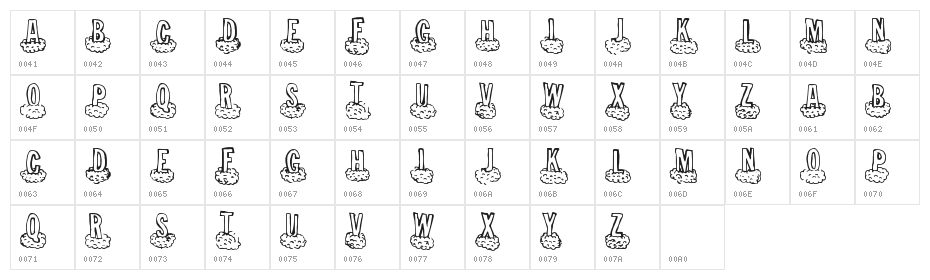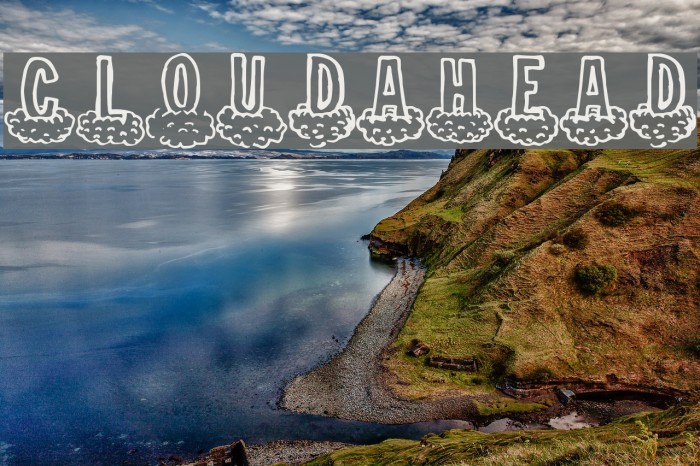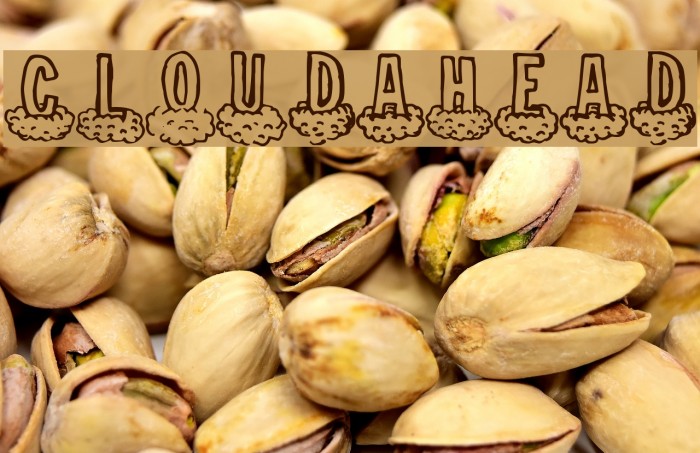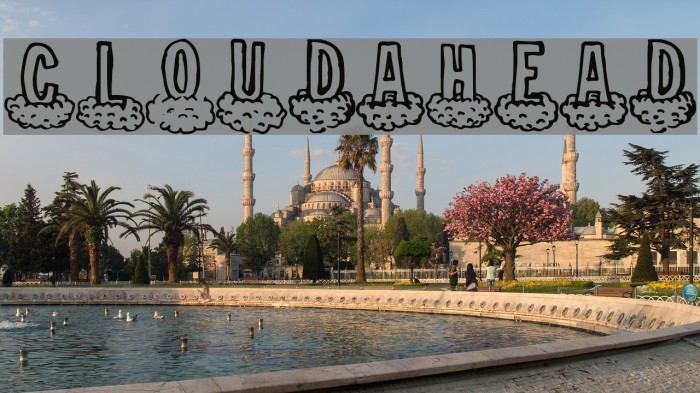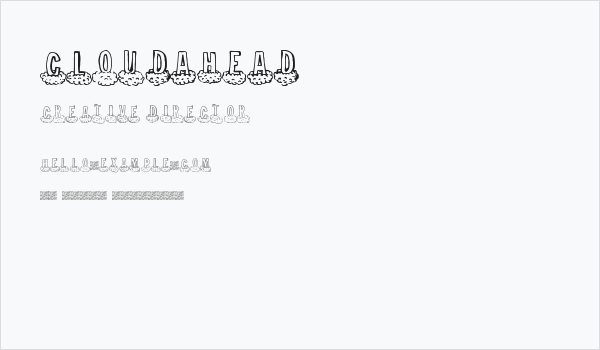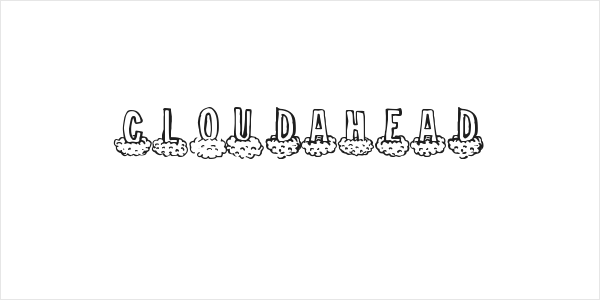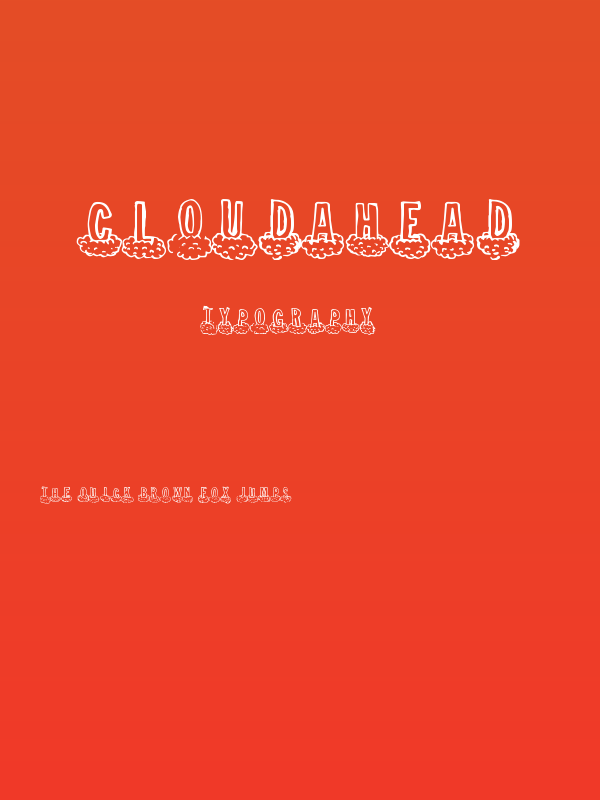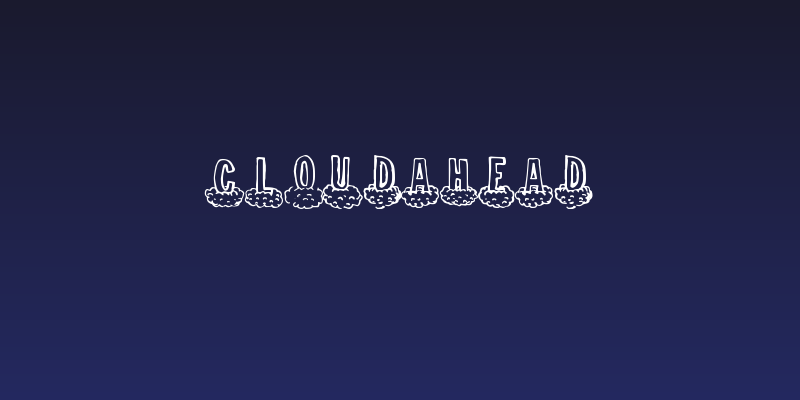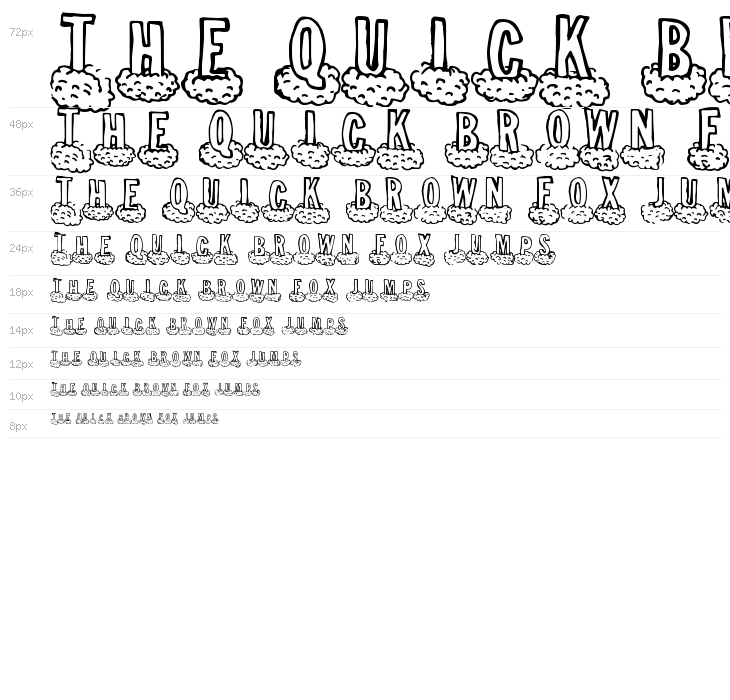
CloudAhead Font
CloudAhead Description
This playful and whimsical font features bold, uppercase letters that appear to be resting on fluffy clouds. Each character is outlined with a thick black line, giving it a cartoonish and fun appearance. The cloud elements add a unique decorative touch, making the font ideal for projects that require a lighthearted and imaginative feel. The letters are evenly spaced, ensuring readability while maintaining a consistent style throughout. This font is perfect for children's projects, playful branding, or any design that seeks to evoke a sense of fun and creativity.
| Overall Style | Whimsical, Fun, Playful |